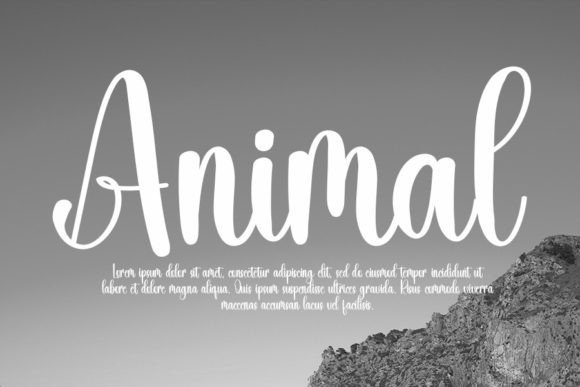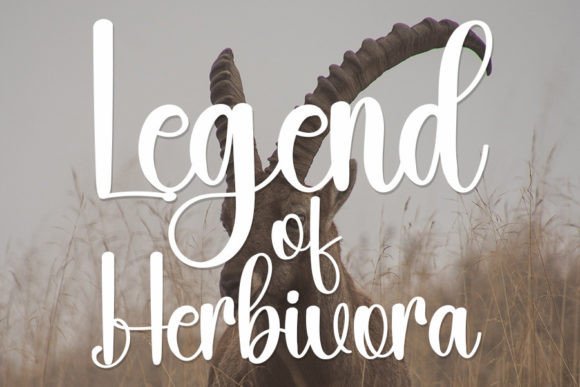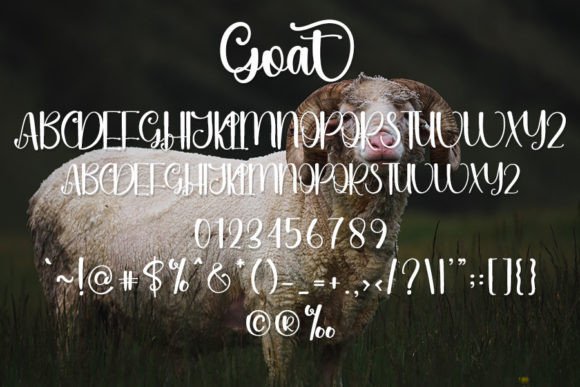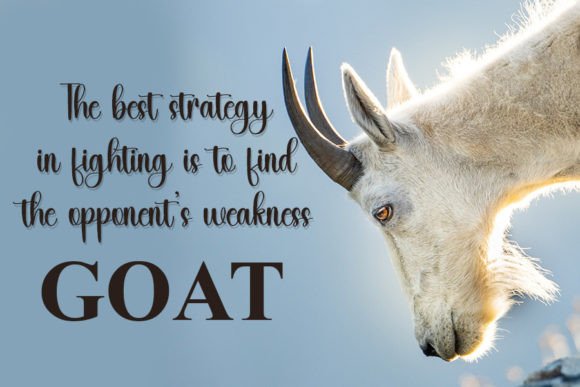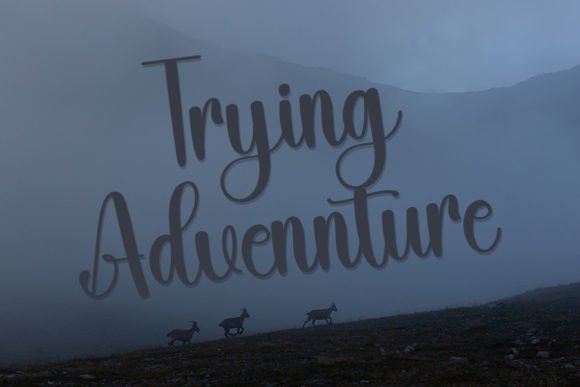
Introducing Goat Font: The Ultimate Casual Script Font for Creative Projects
Are you tired of using the same old fonts for your creative projects? Look no further than Goat Font, a casual and relaxed script font that’s perfect for designers and crafters alike. With its incredibly versatile style, Goat Font is ideal for creating stunning wedding invitations, beautiful stationary art, eye-catching social media posts, and much more.
The Beauty of Goat Font
Goat Font is a script font that’s all about elegance and simplicity. Its casual and relaxed style makes it perfect for a wide range of creative projects, from formal wedding invitations to fun and playful social media posts. The font’s versatility is unmatched, allowing you to use it for both personal and professional projects.
What Makes Goat Font So Special?
So, what sets Goat Font apart from other script fonts on the market? Here are just a few reasons why designers and crafters are falling in love with this amazing font:
• Unique and Elegant Style: Goat Font has a unique and elegant style that’s perfect for creating stunning visual content. Its casual and relaxed vibe makes it ideal for a wide range of creative projects.
• Highly Versatile: Goat Font is incredibly versatile, making it perfect for use in a variety of creative projects, from wedding invitations and stationary art to social media posts and more.
• Easy to Read: Despite its elegant and cursive style, Goat Font is easy to read, making it perfect for use in both digital and print materials.
• Perfect for DIY Projects: Goat Font is a great choice for DIY enthusiasts and crafters, allowing you to create beautiful and professional-looking projects with ease.
Using Goat Font for Creative Projects
So, how can you use Goat Font for your creative projects? Here are just a few ideas to get you started:
• Wedding Invitations: Create stunning wedding invitations with Goat Font, adding a touch of elegance and sophistication to your special day.
• Stationary Art: Use Goat Font to create beautiful stationary art, including greeting cards, thank you cards, and more.
• Social Media Posts: Add a touch of elegance to your social media posts with Goat Font, making them stand out from the crowd.
• DIY Crafts: Use Goat Font for a wide range of DIY crafts, including scrapbooking, journaling, and more.
Tips for Using Goat Font
Here are a few tips for using Goat Font in your creative projects:
• Experiment with Different Sizes: Goat Font looks great in a variety of sizes, so don’t be afraid to experiment to find the perfect size for your project.
• Pair with Other Fonts: Goat Font pairs well with a variety of other fonts, so try pairing it with different fonts to create a unique and interesting look.
• Use for Headings and Titles: Goat Font is perfect for use in headings and titles, adding a touch of elegance and sophistication to your project.
In conclusion, Goat Font is a casual and relaxed script font that’s perfect for designers and crafters alike. With its incredibly versatile style, Goat Font is ideal for creating stunning wedding invitations, beautiful stationary art, eye-catching social media posts, and much more. Whether you’re a professional designer or a DIY enthusiast, Goat Font is a great choice for any creative project.